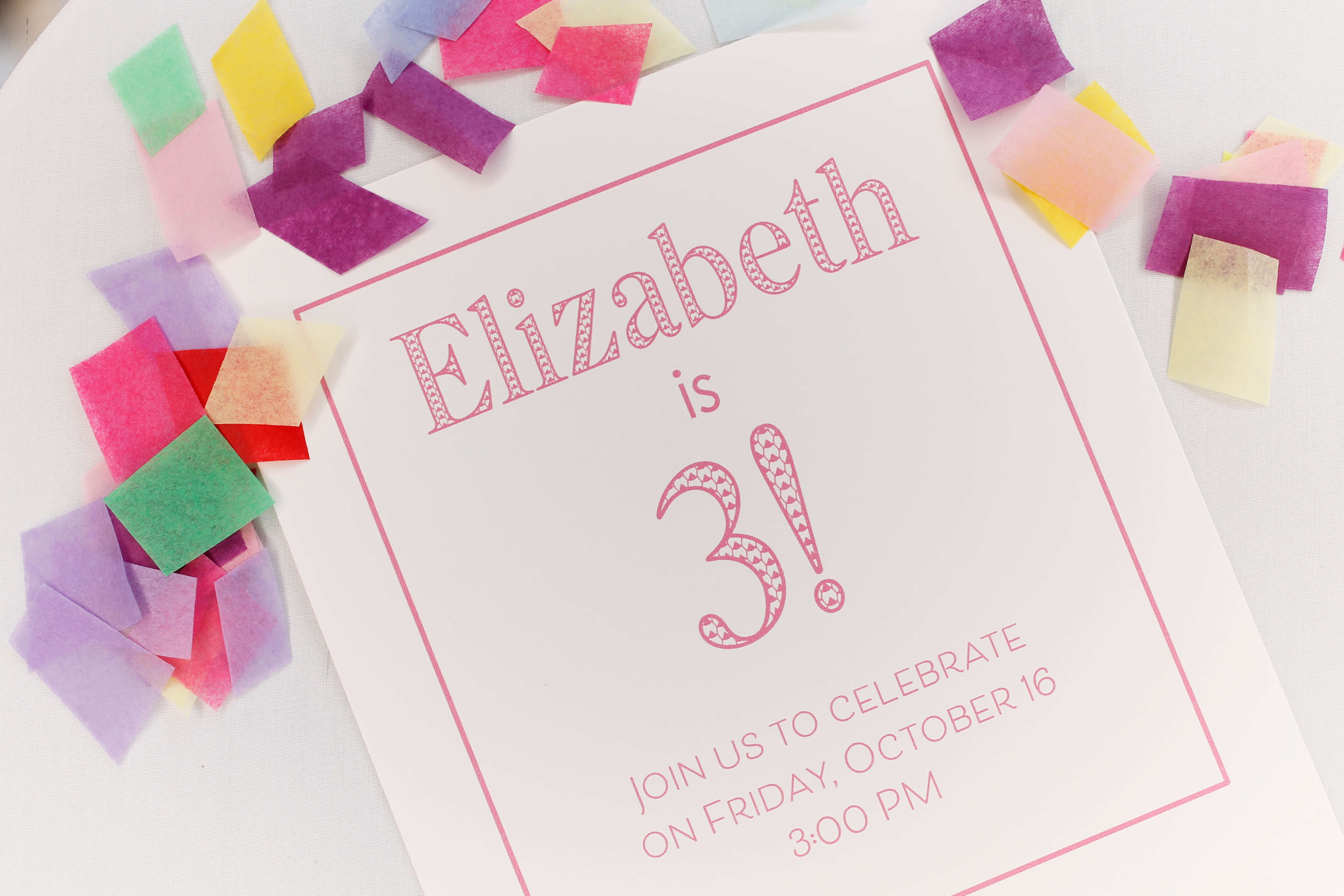
Single Adorn Serif Font for Print
Our Single Adorn Font is a collection of 26 uppercase and 26 lowercase letters plus numbers 0-9 and punctuation. This font features a beautiful and unique fill pattern.